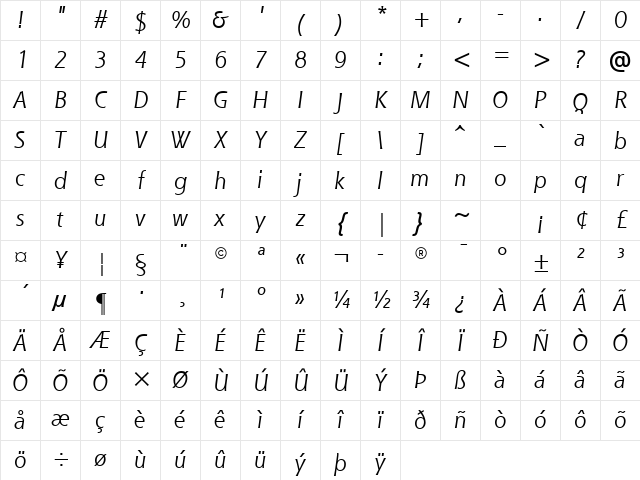
Shannon ATT is a composed and adaptable typeface that performs quietly and consistently across a wide range of design contexts. The slanted form adds forward momentum and visual energy.